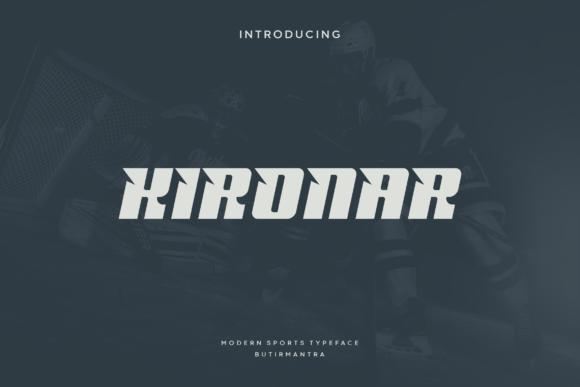
Kironar: A Dynamic Display Font for Crafters & Makers
If you've ever spent hours tweaking a label, testing cut settings on your Cricut, or refreshing a product mockup just to get the typography *right*—you know how much weight a single font carries in handmade business. Kironar isn’t just another display font—it’s that confident, energetic spark your automotive-themed candle labels, rally-inspired wedding welcome board, or limited-edition tote bag collection has been waiting for.
With its fresh, modern cutouts and subtle dynamic tilt, Kironar delivers motion without sacrificing clarity. It’s not chaotic—it’s purposefully quick-feeling, like a clean lap time stamped across a glossy race program. That tilt? It’s calibrated—not exaggerated—so it reads cleanly at 24pt on a kraft paper tag and still pops at 120pt on a 24x36" printable wall art piece. As a display font, it’s built for impact, not paragraphs. Use it for headlines, logos, poster titles, and product names—not body text—and you’ll immediately feel the lift in visual energy.
I’ve used Kironar on everything from vinyl-cut bumper stickers for a local car club to foil-stamped boutique tags for artisanal gear oil bottles. Its sharp geometry holds up beautifully in both digital printables and physical die-cutting. On matte sticker stock, the cutouts add subtle texture; on glossy vinyl, they catch light just enough to suggest speed without looking busy. For Silhouette users: it cuts cleanly at 18pt and above with standard blade settings—no jagged edges, no lost details in those tight interior spaces.
Think beyond racing, too. That “quick feel” translates surprisingly well to summer festivals, youth sports teams, retro-futuristic party invites, and even bold minimalist baby announcements (“Racer Ready Since 2024”). I recently paired Kironar with a soft, rounded sans serif for a set of printable planner stickers—race flag icons next to “Fuel Up” and “Pit Stop”—and customers specifically mentioned how “playful but polished” the combo felt. The font doesn’t shout; it leans in with intention.
For packaging, Kironar shines on small-format items where shelf presence matters. On 2oz candle jars, I use it for the scent name only (“Nitro Vanilla,” “Turbo Amber”)—not the full description—and it instantly signals premium, curated energy. Same goes for soap labels, enamel pin backs, and ceramic mug decals: short phrases, strong identity. It works because it’s legible at distance *and* intimate up close—no squinting required on a product photo thumbnail or Etsy listing preview.
Pairing is intuitive. Try Kironar with a relaxed handwritten font for invitation suites—say, “Welcome to the Finish Line” in Kironar over “Sarah & James” in a gentle script. Or anchor it with a crisp, neutral sans serif (think Montserrat or Inter) for product tags where you need hierarchy: Kironar for the brand name, clean sans for ingredients or care instructions. Avoid pairing it with other high-contrast display fonts—that tilt needs breathing room. And while Kironar isn’t a serif font or script font, its personality makes it an excellent counterpoint to both.
Readability tips for makers: avoid using Kironar below 14pt for printed cards or tags—those cutouts begin to blur visually at smaller sizes. For iron-on transfers or sublimation mugs, stick to 28pt minimum to ensure crisp outlines after heat application. And always test a full word—not just “RACE”—in your design software; some letters (like “a” and “e”) have distinctive open counters that benefit from spacing adjustments in tighter layouts.
What makes Kironar especially valuable for crafters isn’t just its style—it’s its reliability. Unlike trend-driven fonts that feel dated in six months, Kironar’s balance of sporty confidence and clean modernity gives it staying power. It reads as intentional, not gimmicky. Whether you’re designing a one-off farmers’ market sign or building a cohesive brand identity for your automotive lifestyle shop, this display font helps your work feel unified, professional, and quietly exciting.